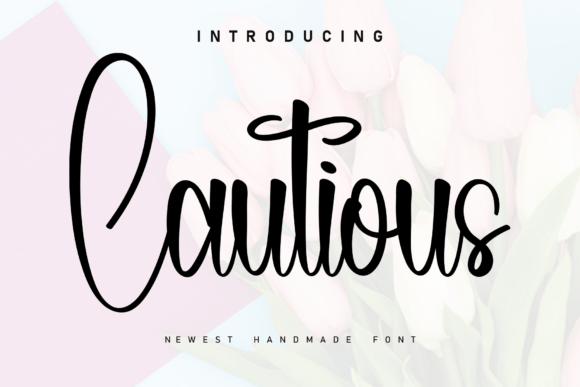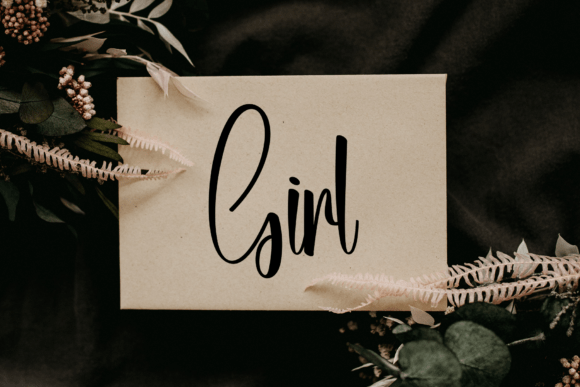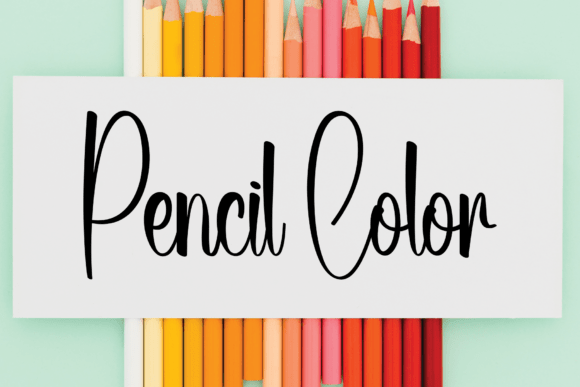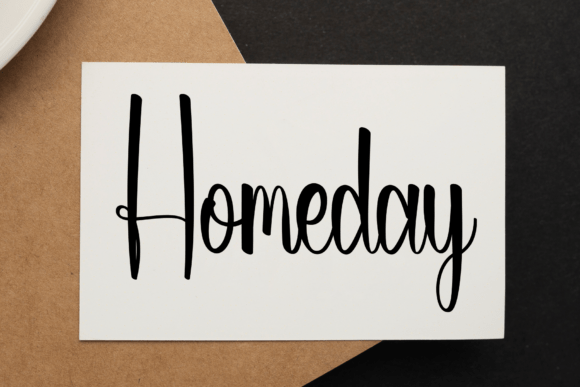
Cautious Script Fonts
Embodying the kinetic flow of a quick-drying felt-tip pen, Cautious strikes an artful balance between high-performance energy and editorial poise. It is a typeface designed for the “effortless luxury” aesthetic—capturing the raw, manual rhythm of a creative director’s signature. While its roots are grounded in a laid-back, athletic spirit, its silhouette carries a sophisticated weight perfect for upscale visual identities, bespoke event stationery, and high-end fashion narratives. Use it to inject an organic, human touch into lookbooks and promotional campaigns where the goal is to feel both exclusively premium and disarmingly approachable.